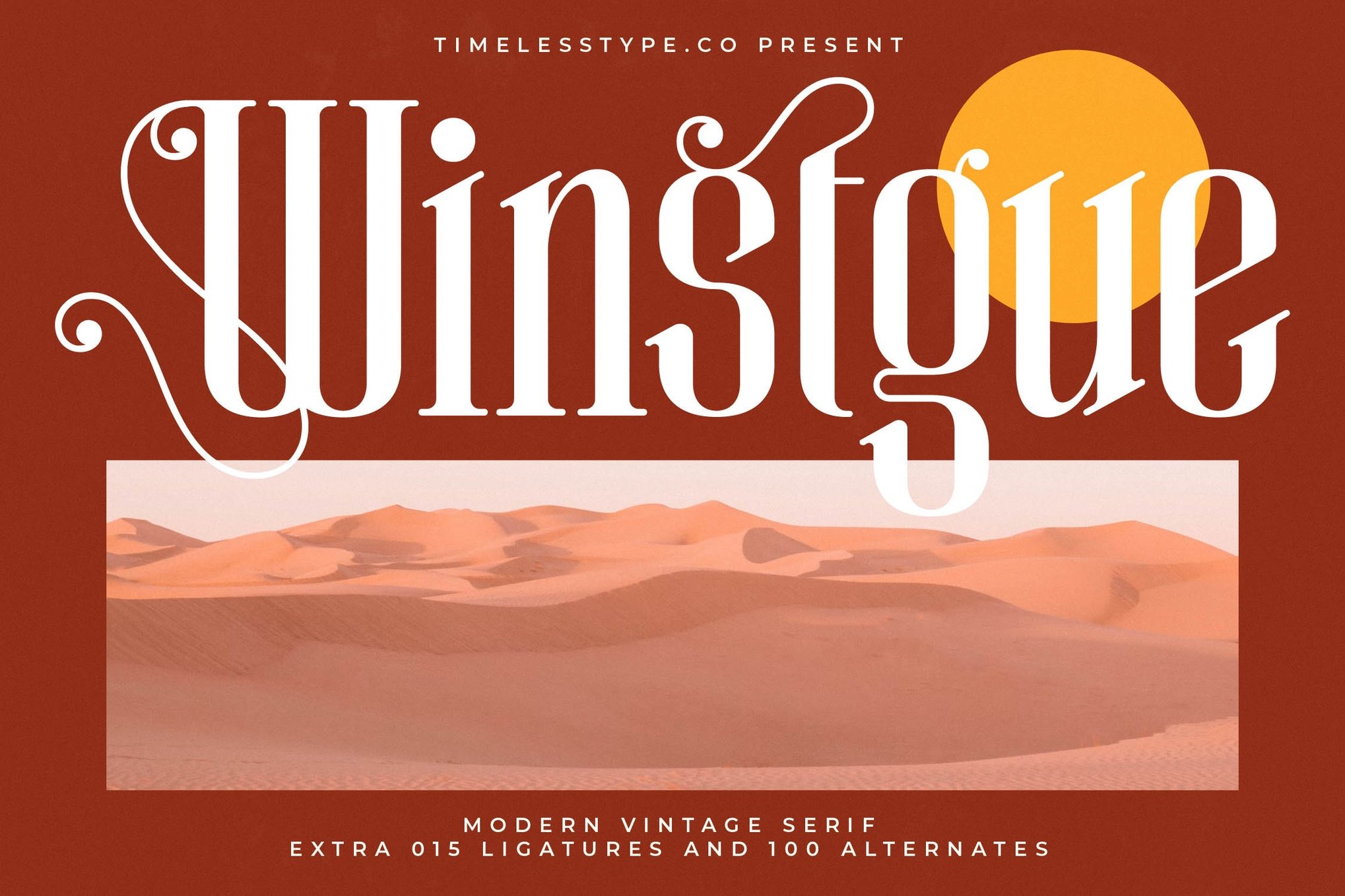
Winstgue Font
Winstgue Font is a distinctive and expressive font crafted to bring personality, structure, and creative energy into your projects. Winstgue is a modern vintage serif crafted with dramatic contrast, ornamental strokes, and expressive ligature forms that deliver a bold yet elegant visual presence. Its tall structure, refined curves, and sweeping decorative terminals create a distinctive personality—perfect for luxury branding, editorial titles, boutique packaging, logos, posters, and artistic display compositions. With 15 bespoke ligatures and 100 stylistic alternates, Winstgue offers endless flexibility to shape unique typographic expressions while maintaining a timeless, premium aesthetic suited for designers who want strong character and refined sophistication in every layout.